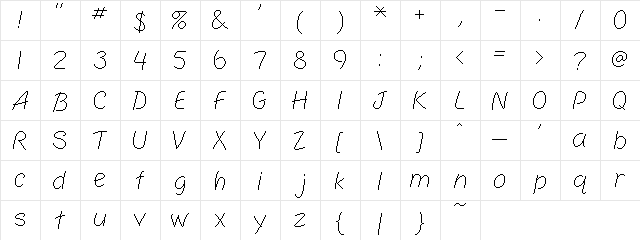
Tolman Regular
| Designer | Omegaville |
Design Context for Tolman Typeface
Tolman offers clean, dependable letterforms without strong stylistic allegiance, making it a practical choice for designers who need flexibility.